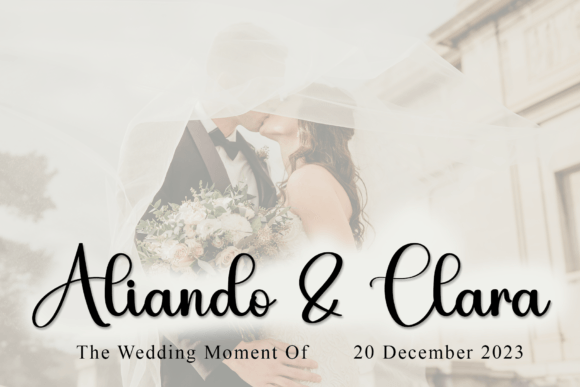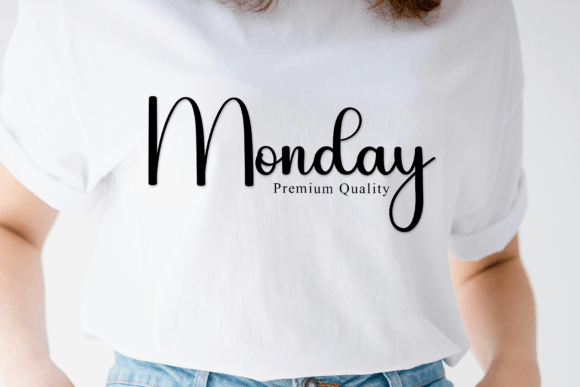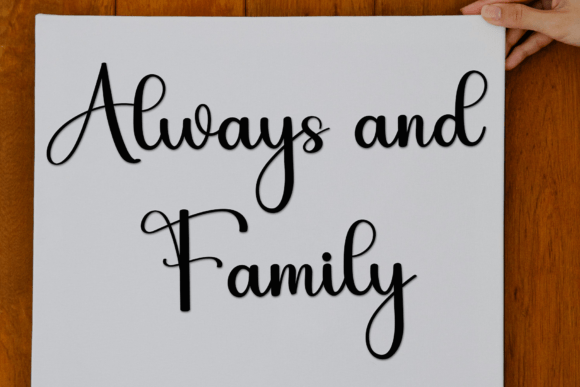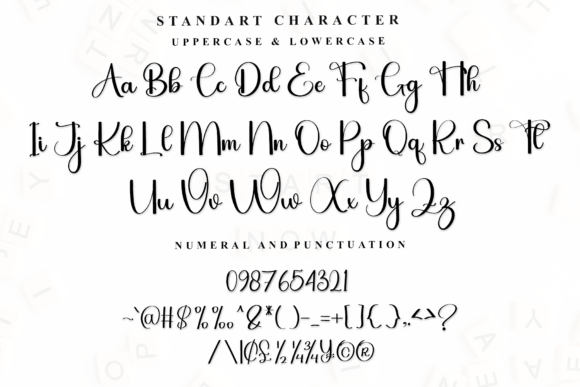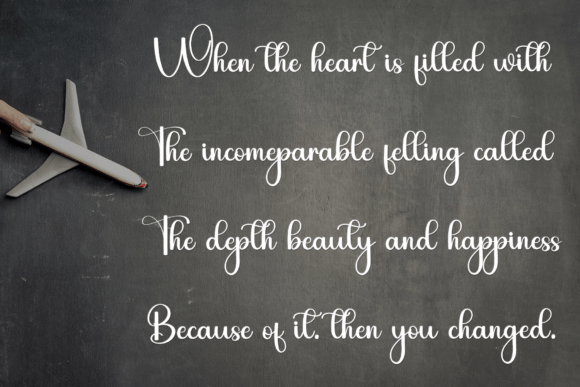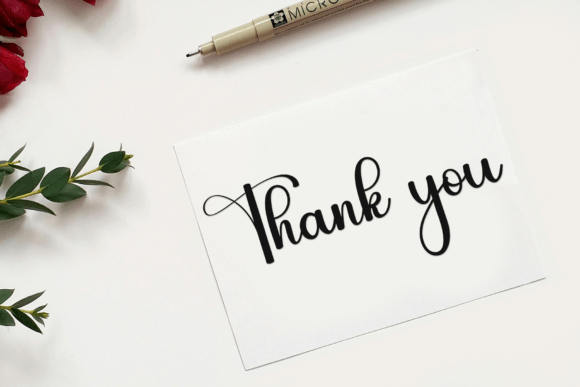
Introducing Brother Font: Elevate Your Designs with Elegance and Sophistication
In the world of typography, a font can make or break a design. For designers and crafters seeking to add a touch of class and modernity to their work, Brother Font is an exceptional choice. This beautiful, refined handwritten font is perfect for a wide range of applications, from logos and branding to invitations, stationery, wedding designs, social media posts, and more.
The Characteristics of Brother Font
Brother Font boasts a classy, elegant, and modern look that sets it apart from other fonts. Its refined handwritten style exudes sophistication, making it ideal for designs that require a high level of professionalism. The font’s versatility allows it to be used in various contexts, ensuring that your designs will always stand out.
What Makes Brother Font Special?
One of the key features that make Brother Font exceptional is its PUA (Private Use Area) encoding. This means that users can easily access a wide range of glyphs and ligatures, allowing for greater creative freedom and flexibility. With PUA encoding, you can unlock the full potential of Brother Font and take your designs to the next level.
Use Cases for Brother Font
The possibilities are endless when it comes to using Brother Font. Here are some examples of how you can incorporate this beautiful font into your designs:
- Invitations and Stationery: Add a touch of elegance to your invitations, greeting cards, and stationery with Brother Font’s refined handwritten style.
- Wedding Designs: Make your wedding designs truly unforgettable with a font that exudes romance and sophistication.
- Social Media Posts: Elevate your social media presence with eye-catching posts that feature Brother Font’s modern and classy look.
Brother Font offers numerous benefits for designers and crafters, including:
- Time-Saving: With PUA encoding, you can access a wide range of glyphs and ligatures without having to spend hours designing custom elements.
- Consistency: Use Brother Font across multiple projects to maintain a consistent visual identity and brand recognition.
- Flexibility: Experiment with different design styles and applications, from digital to print, with a font that adapts seamlessly.
Tips for Getting the Most Out of Brother Font
To maximize the potential of Brother Font, consider the following tips:
- Experiment with Ligatures: Take advantage of Brother Font’s ligatures to add a touch of elegance and sophistication to your designs.
- Play with Font Sizes: Use Brother Font in various sizes to create visual hierarchy and emphasize key elements in your designs.
- Pair with Other Fonts: Combine Brother Font with other fonts to create a unique and visually appealing typography style.
Brother Font is a beautiful, refined handwritten font that offers a classy, elegant, and modern look for a wide range of design applications. With its PUA encoding and versatility, this font is perfect for designers and crafters seeking to elevate their designs and add a touch of sophistication. Whether you’re working on logos, branding, invitations, stationery, wedding designs, or social media posts, Brother Font is an exceptional choice.